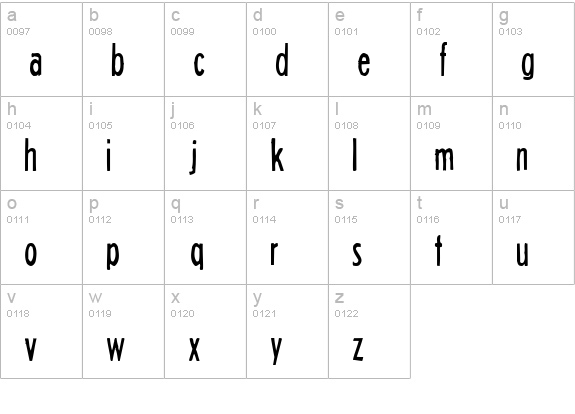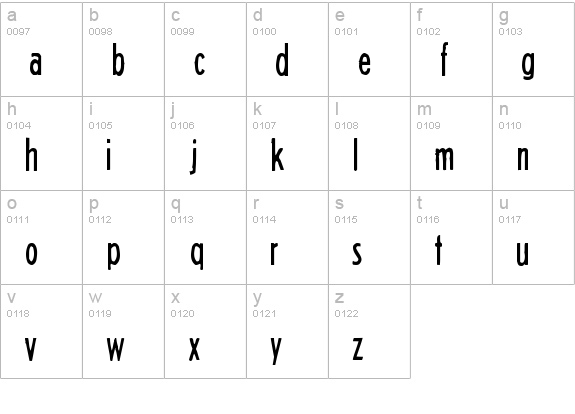
Headline Two HPLHS Font Details
Introducing Headline Two HPLHS font, a captivating typeface designed to make your headlines stand out with its unique and eye-catching style. This font is perfect for adding a touch of elegance and sophistication to any design project, whether it's for print or digital media. With its bold and dramatic letterforms, Headline Two HPLHS commands attention and effortlessly captures the essence of professionalism and creativity. Each character is meticulously crafted to ensure consistency and legibility, making it ideal for headlines, titles, banners, and logos. But what sets Headline Two HPLHS font apart is that it is freely available to download at FontsMarket.com. Yes, you read that right - it's completely free! Now you can enhance your designs with this stunning font without breaking the bank. So why wait? Discover the endless possibilities of Headline Two HPLHS font and elevate your design projects to new heights. Download it today at FontsMarket.com and let your creativity soar.